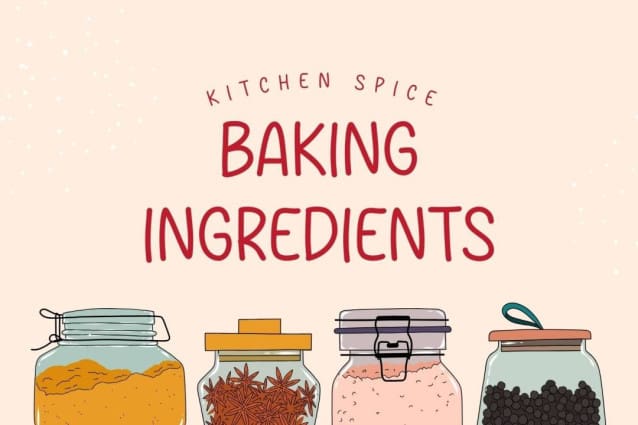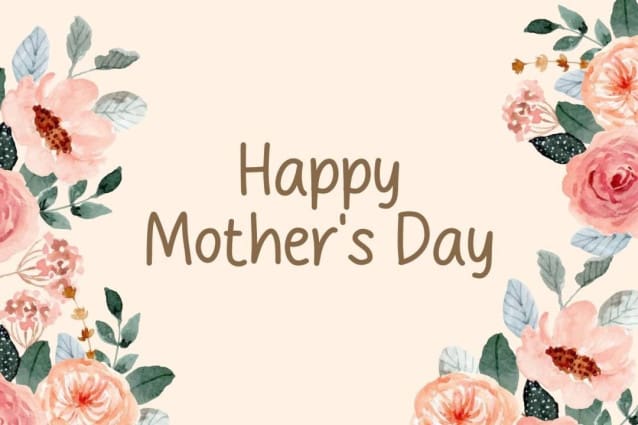
Study Case Font
Study Case Font is a simple and friendly handwritten font. Its natural and unique style makes it incredibly fitting to a large pool of designs. The only limit is your imagination!